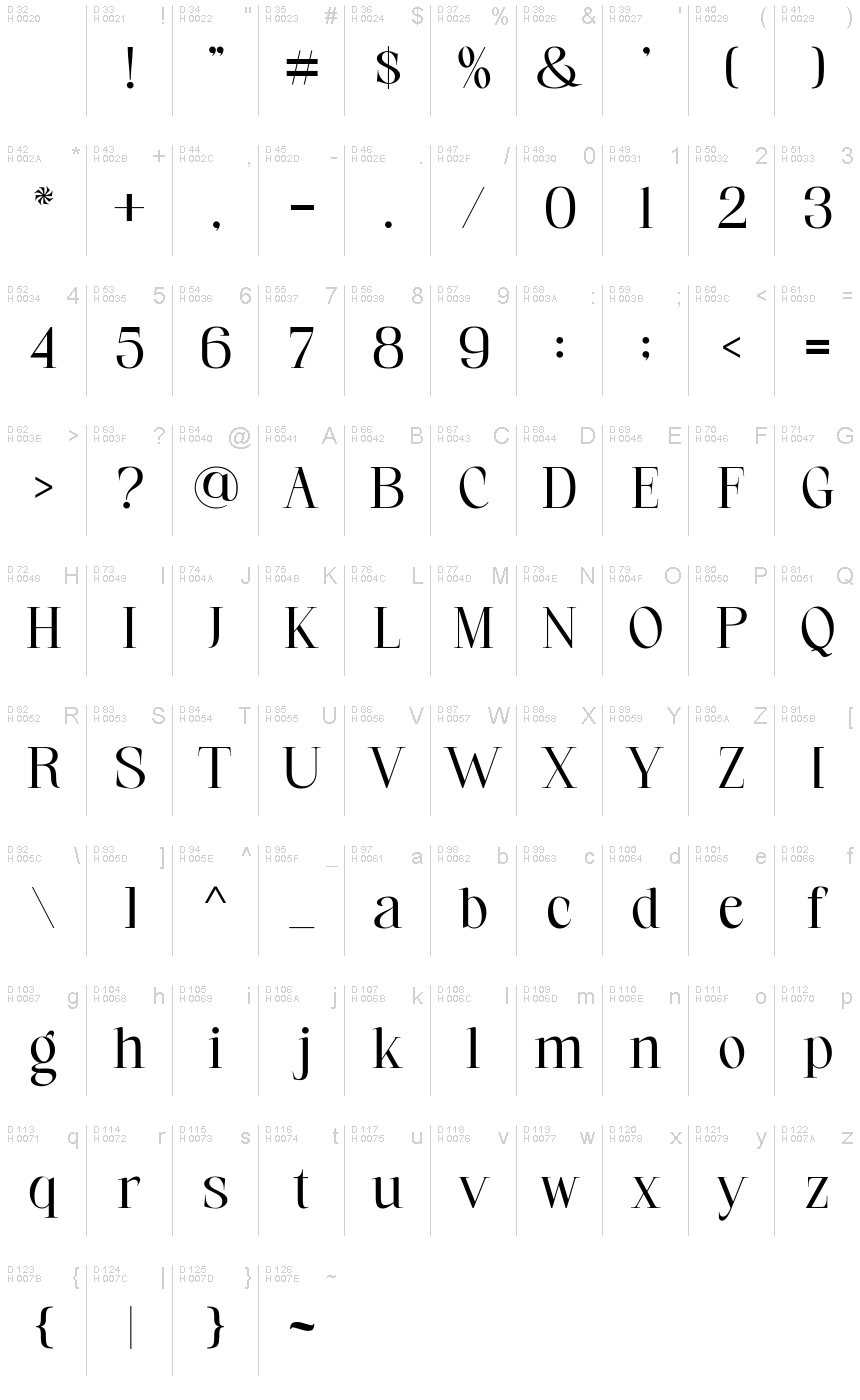
Cornate
Cornate, designed by ToniStudio, is a semi-light, serif font that masterfully combines elegance with modern sensibility. Its semi-condensed width offers a sophisticated yet approachable aesthetic that is as versatile as it is beautiful. The delicate serifs add a classic touch to the contemporary shape of the letters, making Cornate an exceptional choice for designers looking to impart a sense of refinement and clarity in their work.
The font's airy weight and subtle condensation allow for excellent readability in both print and digital formats, rendering it ideal for diverse creative projects—from editorial design to branding initiatives. Cornate's unique characteristics ensure that it stands out in any context while maintaining an understated grace that complements a wide range of design concepts.